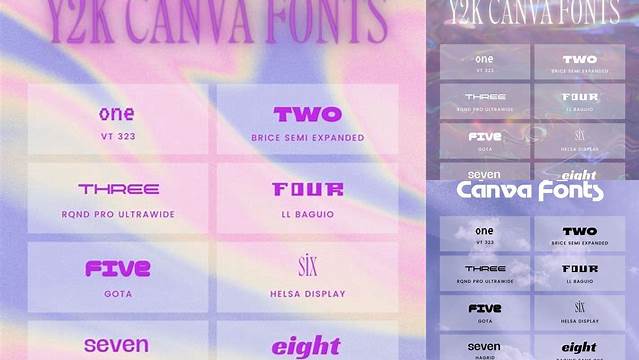
Cool Cyber Y2K Fonts In Canva: A Guide
Hey guys! Ever wanted to sprinkle some serious late 90s/early 2000s vibes into your designs? If you're nodding, you're in the right place! We're diving headfirst into the awesome world of cyber Y2K fonts in Canva. This guide is your ultimate cheat sheet for finding, using, and making the most out of those iconic, retro fonts that scream dial-up internet, holographic backgrounds, and a whole lot of attitude. So, buckle up, grab your virtual flip phone, and let's get this digital party started!
H2: What Exactly ARE Cyber Y2K Fonts?
Alright, before we get our hands dirty, let's nail down what we're actually talking about. Cyber Y2K fonts are the typography darlings of the late 90s and early 2000s. Think glitchy, bubbly, futuristic, and a little bit rebellious. These fonts perfectly captured the zeitgeist of a time when technology was rapidly evolving, and the internet was becoming a global phenomenon. Think of it as the aesthetic embodiment of a digital boom! These fonts weren't just fonts; they were a statement. They were on everything from CD covers, website interfaces, and clothing designs. They helped define an entire visual culture! They often feature sharp edges, bold lines, and sometimes, a touch of digital distortion. They are very distinct from the more minimalist and clean designs we see today. Cyber Y2K fonts were bold and attention-grabbing. They were designed to make a statement. Many of them were also heavily influenced by the rave and club scenes, resulting in fonts that were energetic, dynamic, and ready to get you pumped up. The design of the Cyber Y2K aesthetic was a direct response to the anxieties and excitement surrounding the dawn of the digital age. They were fun, they were in your face, and they absolutely defined an era. They remind us of simpler times when the future seemed full of infinite possibilities. And the best part? They're making a HUGE comeback, baby! People are feeling nostalgic for a time before smartphones and social media. Now, you can easily integrate those retro fonts into your designs using Canva!
H3: Characteristics of Cyber Y2K Font Styles
When you're on the hunt for these fonts, look for specific traits. First, a love for all things digital is present. These fonts often have a glitchy, pixelated, or distorted look, echoing the glitches and imperfect visuals of early computer graphics. Secondly, boldness reigns supreme. Many Y2K fonts are heavy, blocky, and command attention, making them perfect for headlines, logos, and anything you want to stand out. Think of the impact of neon signs at night. Then, there's the metallic sheen. Chrome, silver, and iridescent colors often inspired the design, creating an overall futuristic feel. Also, geometric shapes and sharp angles are very common in this style. Forget curves; think triangles, squares, and lines arranged in dynamic patterns. Finally, let's not forget about the playful and experimental nature of the fonts. A lot of these fonts are unconventional and push the boundaries of traditional typography. You'll see things like letter spacing, overlapping characters, and unexpected flourishes. These fonts are all about breaking the rules and embracing the imperfections of the digital world. When you see these characteristics, you know you've struck font gold! Understanding these elements will help you quickly spot the perfect Y2K font for your Canva projects. The right font can transport your audience back to the future (or at least, the early 2000s) in an instant!
H2: Finding Cyber Y2K Fonts in Canva
Okay, let's find these digital treasures! Canva makes this process easy. First things first, open Canva. You'll see the search bar. Start by typing in broad terms like "Y2K font," "retro font," or "2000s font." Canva’s search engine is pretty good at suggesting relevant fonts based on these keywords. As you search, keep your eyes peeled for font names that have “cyber,” “digital,” or “tech” in them. Those are usually good indicators of a Y2K vibe. If you want to narrow down your search, try using specific style keywords. For example, you might search for “bubble font,” “glitch font,” or “pixel font.” These terms will help you find fonts with specific aesthetic elements that were popular during the Y2K era. Don't be afraid to explore different fonts, even if they don't immediately seem like a perfect fit. Many fonts can be tweaked with Canva’s editing tools to get the look you desire. Once you find a font that catches your eye, take a close look at its character set. Make sure it includes all the characters you need for your design. Check how well the font works with different font sizes and styles, and how it looks in both uppercase and lowercase. This is a good practice to see if the font truly resonates with your brand or project. If you have a specific font in mind, you can upload it to Canva. Canva supports custom fonts, so if you have a Y2K font file that isn't already in Canva, you can add it! This is how you can truly create something unique. Remember to always check the font's license before you use it for commercial projects. Many free fonts are only for personal use. Now, get ready to unleash those fonts and transform your designs!
H3: Using Canva's Font Filters and Search Options
Canva’s search options are your best friends! Once you’re in the font selection menu, look for the font filters. They're often hidden but they are SUPER helpful! Start by typing a basic keyword (like “Y2K”). Then, use the filter options to narrow down your choices. You can filter by font styles like “serif,” “sans-serif,” “display,” etc. While these categories might not be perfectly tailored to Y2K, they can still help you find fonts that are similar in style. The filters are a great way to sort through the vast library and quickly identify potential Y2K font candidates. Also, Canva lets you filter by font “features,” such as boldness, italics, and rounded corners. Although not all of these filters will perfectly align with Y2K, they can help you refine your results. Pay close attention to the "font pairing" suggestions. Canva often recommends fonts that complement each other. This is helpful for creating well-rounded designs where your text elements work seamlessly together. Experiment with different search terms and filters to find the best combinations. Always view the fonts in different sizes and in various contexts within your designs. Seeing how a font behaves in real-world applications is vital. Remember, practice and exploration are key. The more you experiment with Canva's tools, the better you will become at finding the perfect Y2K fonts for your projects. These filters and search options are not just tools; they are keys to unlocking the perfect retro aesthetic.
H2: Importing Custom Cyber Y2K Fonts into Canva
H2: Designing with Cyber Y2K Fonts: Best Practices
So, you've got the fonts; now what? Let's dive into the best practices for making them shine. Keep it balanced. Y2K fonts are bold, so use them sparingly. Use these fonts to highlight key elements like headlines, titles, or important text, and pair them with more subtle fonts for body text. Then, make use of color contrast. The brighter the contrast, the more impact your design will have. Experiment with vibrant colors, neon hues, and metallic finishes to capture the essence of the era. Color can make or break your design. Make sure your fonts are legible. Some Y2K fonts can be challenging to read, so choose them wisely. Ensure the text remains clear and easy to understand, especially in smaller sizes. Always test how your fonts look on different backgrounds, colors, and image contexts. Play with spacing and alignment. Y2K fonts often benefit from creative spacing and alignment, such as overlapping characters or unconventional layouts. Experiment to see what works best for your design. Don't be afraid to embrace the imperfections. This is part of the Y2K aesthetic. Celebrate those glitches, the pixelation, and the bold, unapologetic nature of the fonts. It's all about capturing that specific vibe. Keep in mind the overall design theme. Your font choice is only one piece of the puzzle. Ensure the overall design aligns with the Cyber Y2K aesthetic. This might mean using other design elements, such as retro graphics and textures. And remember, experimentation is key! The best designs are often a product of trial and error. Don't be afraid to test different font combinations, layouts, and color schemes until you achieve the desired effect. Keep these tips in mind, and you'll be on your way to creating stunning Y2K-inspired designs in Canva!
H3: Font Pairing and Combinations for Cyber Y2K
Finding the right font combinations is like matching the perfect outfit. To successfully pair fonts, consider the contrasts and similarities between your choices. First, let's discuss complementary pairings. Think of a bold Y2K font for your headlines paired with a clean, simple font for the body text. This creates a balance between visual impact and readability. Use font pairings where one font is dominant and the other is secondary. Try using a glitchy, heavily stylized Y2K font for the title. Then, pair it with a sleek sans-serif font for supporting text. The key is to create visual interest without sacrificing readability. Contrast is important. Try pairing a heavy, blocky Y2K font with a thinner, more delicate font. The contrast in weight can create a striking visual effect. Experiment with different sizes, weights, and styles within your font pairings. This will create visual hierarchy and guide the reader's eye. Consider the overall mood and style of your design. Ensure the font pairings align with the theme you want to convey. If you are aiming for a futuristic look, consider pairing your Y2K font with a minimalist font. On the other hand, if you want a more playful vibe, you can mix a bubbly Y2K font with a quirky, handwritten style. Remember that the goal is to create visual harmony. The fonts should work together to enhance the overall design, not distract from it. When trying different pairings, use Canva’s “font pairing” suggestions to get started. Canva often recommends fonts that complement each other. Don't be afraid to experiment with different combinations. Try mixing and matching different font styles. Some examples of font pairings are: a bold Y2K font with a simple sans-serif, a glitchy font with a clean serif, or a bubbly font with a geometric sans-serif. Play around, have fun, and find the perfect combination!
H2: Using Cyber Y2K Fonts for Logos and Branding
Logos and branding are all about making a lasting impression, and cyber Y2K fonts are fantastic for this. These fonts can bring a unique personality to your logo. But it's not just about the aesthetic. When choosing a Cyber Y2K font for your logo, think about the message you want to send. Consider the core values of your brand. Does it fit your target audience? The font style can influence how your brand is perceived. If you're going for a cutting-edge, tech-savvy image, these fonts can be perfect. If your brand aims to appeal to nostalgia, Y2K fonts will be a great choice. Make sure the font is versatile. Your logo will appear on a wide range of materials. It must look good on everything from business cards to websites. Check how your logo looks in both large and small sizes. You want to make sure your logo maintains its visual impact. Always test your logo across various platforms. See how it looks on websites, social media, and print materials. Check how the font appears in different color schemes and backgrounds. Also, consider creating variations of your logo. You might need different versions for different applications. You may have a primary logo and secondary variations. Always consider the legal aspects. Before using a font commercially, make sure you have the right to do so. Always review the font's license agreement. Y2K fonts can bring your brand’s personality and make it memorable.
H3: Cyber Y2K Font Usage in Logos: Dos and Don'ts
Let's get specific on how to use these fonts for logos. First, do choose a font that is easy to read. The primary goal of your logo is to communicate your brand name. Make sure it doesn't get lost. Do consider the context in which your logo will be used. Will it appear primarily on websites, or in print? The font you choose should be suitable for the most common uses. Do test your logo in various sizes and formats. It must look good across all media. Do think about the longevity of the font. While Y2K fonts are currently trendy, consider if the style will remain relevant. It may not be timeless. Now, the don'ts are also crucial. Don't choose a font that is too complex or overly stylized. Overly detailed fonts can become illegible when scaled down. Don't use too many different fonts in your logo. This can create a cluttered and confusing look. Stick to one or two fonts at most. Don't forget to check the font's license. Ensure you have the right to use the font commercially. Don't use a Y2K font if it doesn't align with your brand's identity. Make sure the font matches your overall message. Your logo is your brand's face, so make it count! These simple guidelines will help you create a powerful and memorable logo using Cyber Y2K fonts.
H2: Cyber Y2K Font Trends and Inspirations
Staying up-to-date on trends and getting inspiration from the best is key. Keep up with the trends. Cyber Y2K fonts are dynamic. See what other designers are doing! Follow graphic design blogs and social media accounts dedicated to Y2K and retro design. Keep an eye on websites and apps to observe how they're using Y2K fonts. Also, let’s explore some inspirations. Remember iconic Y2K brands. Think of brands that defined the era, like early tech companies or fashion brands. Check out their old logos and marketing materials. Let's see the music industry. CD covers, music videos, and band logos from the early 2000s can be a treasure trove of inspiration. Let's explore art and film. Look for Cyberpunk films like The Matrix and Blade Runner. These visual worlds had a heavy influence on Y2K aesthetics. Let's talk about video games. Old video games and their graphics from the late 90s and early 2000s can inspire your designs. Explore those pixelated and glitchy fonts. Let's not forget about the internet. Explore websites and online art communities. These can give you a huge dose of inspiration. Remember to develop a mood board. Gather your favorite fonts, colors, and design elements. This will help you create a cohesive design aesthetic. And of course, don't be afraid to experiment! Try to remix and reinterpret the classic styles. The Cyber Y2K aesthetic is very dynamic.
H3: The Comeback: Why Cyber Y2K Fonts Are Trending Now
Why are these fonts all the rage? It's simple: nostalgia! The popularity of Cyber Y2K fonts is fueled by a collective longing for the past. People feel nostalgic for a time of optimism about technology. These fonts tap into those memories. Also, there's a renewed interest in the aesthetic itself. The unique style of these fonts is visually striking. They offer something fresh and exciting compared to today's more minimalist designs. Social media has also played a role. Platforms such as Instagram and TikTok are full of Y2K-inspired content. These fonts are perfect for graphics, memes, and content that needs to catch the eye. The visual language that developed during the era has a distinctive feel. The glitchy, metallic, and bold designs make designs memorable. Y2K fonts can convey authenticity and a sense of playfulness. This trend isn't just about the style; it's a cultural phenomenon. They represent the hopes and fears of a generation on the cusp of the digital revolution. Cyber Y2K fonts are not just fonts; they're cultural artifacts. They're a symbol of a transformative period in history. This has boosted the demand for such fonts.
H2: Combining Cyber Y2K Fonts with Graphics and Imagery
It’s not just about the text; let's talk about how to blend those fonts with your visuals! First things first: Choose images that complement your fonts. Think about the kind of imagery associated with the Y2K era. This could include futuristic landscapes, tech-inspired illustrations, or even nostalgic photos of dial-up modems. The images you choose will help create a cohesive design. Experiment with colors and effects. Combine the colors, like neon greens, electric blues, and chrome silvers, with those bold fonts. Canva has various image effects. Explore the available options. Match those effects to the vibe you want to create. Consider the overall composition. Make sure that the font and the imagery work together. Avoid clashing styles and create a clear visual hierarchy. Ensure the text is readable against the background. If your background is busy, use a contrasting color or a subtle overlay to make the text stand out. Make use of Canva's graphics library. Canva offers tons of graphics. You can find all sorts of shapes, icons, and illustrations that are perfect for the Y2K aesthetic. Consider layering elements. Layering different elements will make your designs more dynamic. For example, you can add gradients or textures to the background. Make sure the font and images work together in harmony. Creating cohesive designs requires a bit of practice. Combine the fonts with images to create compelling visuals.
H3: Incorporating Cyber Y2K Fonts with Backgrounds and Textures
When it comes to backgrounds and textures, the goal is to set the scene and make those fonts pop. Let's start with the background. A great background can be the difference between a good design and a great one. Consider using gradients. Y2K often embraced vibrant gradients. They give a futuristic feel. Choose colors that complement your font. Now, the textures: Textures can add depth and dimension to your designs. Experiment with patterns. Consider using patterns like static, glitch effects, or pixelated textures. These add a digital edge to your design. Don’t forget the layering effect. Use gradients, textures, and patterns. These elements can create a cohesive and visually interesting design. Experiment with different blending modes in Canva. Blending modes can change how your text interacts with the background. Use textures to enhance your font. Textures can bring your fonts to life. Ensure the textures enhance the font's design. Make sure the font remains legible against the background. Always maintain balance. You want the font to remain the focal point. The right combination of background and texture can transform your design. Play around and see what works best. Use Canva's options for effects and colors. This way, you'll create some unique backgrounds and textures for your Y2K designs.
H2: Tips and Tricks for Effective Cyber Y2K Design
Let's put all this together into an awesome design! First, consider your target audience. Who are you trying to reach with your design? Think about their preferences, interests, and their own memories of the Y2K era. Think about the message you want to convey. What do you want people to take away from your design? Make sure the fonts and graphics are aligned with this message. Try experimenting with different layouts. Play around with the placement of your fonts, images, and other design elements. Test the design on different platforms. This way, you will check that it still looks good. Always stay consistent with your branding. If you’re creating designs for a brand, make sure your choices align with your brand. Make sure the text is readable and visible. Don't overcomplicate things. Sometimes the simplest designs are the most effective. Avoid unnecessary elements. Always keep the design simple and easy to understand. When combining those fonts and images, make sure you test your design and get feedback. Consider getting feedback from others. They may offer suggestions. Designing with Cyber Y2K fonts is about the right choices, and that is about to take your designs to the next level.
H3: Avoiding Common Design Mistakes with Y2K Fonts
It's easy to make mistakes when you’re designing, so here’s how to avoid them! Let's begin with readability. Always make sure the font is readable. Avoid fonts that are too complex. Use clear fonts. Always ensure the text stands out against the background. Another mistake is overcrowding your design. Don't cram too many elements into your design. It can make the design look cluttered. Stick to a minimalist approach. Make sure there is enough white space. Balance is another important factor. Avoid imbalances in the design. Make sure there is a visual hierarchy. Use those bold Y2K fonts to highlight key information. Another mistake is ignoring color contrast. When choosing a font, always consider the color. Consider your color palette. The color and the font are the elements that enhance the design. Be careful when choosing colors. It can be hard to see the text. Finally, always be consistent with your branding. If you're designing for a brand, maintain consistency across all your designs. Remember that, at the end of the day, design is about the message you convey.
H2: Resources and Tools for Cyber Y2K Design
Let’s load you up with some helpful tools! Canva, of course, is your primary hub. But let's explore some other useful resources. Websites like DaFont and Font Squirrel offer a huge selection of free Y2K-style fonts. Make sure you check the licenses before using any fonts for commercial projects. Adobe Color is an amazing tool for creating and exploring color palettes. You can generate palettes, browse existing ones, and even extract color schemes from images. Coolors is another great option for color palette generation. You can create your own palettes or browse existing ones. Unsplash and Pexels are free stock photo websites. They can be a great resource for finding images that fit your aesthetic. Explore design blogs and tutorials. Websites such as Creative Bloq and Smashing Magazine offer design tips and tutorials. Check for inspiration. Make sure you stay updated on the latest trends in graphic design. Social media is also an amazing resource. Platforms like Instagram and Pinterest are excellent for finding inspiration. Search for Y2K-related keywords and hashtags. Stay active in the design community. Engage with other designers to ask for feedback and share your work. All these resources can fuel your creative process.
H3: Free Font Websites and Resources for Cyber Y2K Fonts
Where to find those fonts! DaFont is one of the most popular sources for free fonts. It has a large collection, including many that fit the Y2K aesthetic. Make sure you check the license before using it. Font Squirrel is another great option. Font Squirrel offers a curated collection of free fonts. The fonts are carefully selected to ensure quality. Google Fonts is a free collection of fonts that are perfect for web design. While not all of them are Y2K, you can find some with retro qualities. 1001 Fonts is another great source. They have a large selection of free fonts. They have a variety of Y2K-style fonts. Behance is a great platform. It's a great place to find inspiration and discover new fonts. Search for